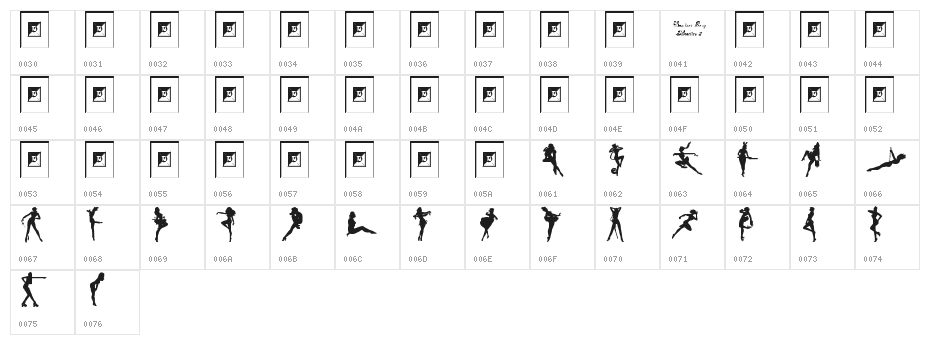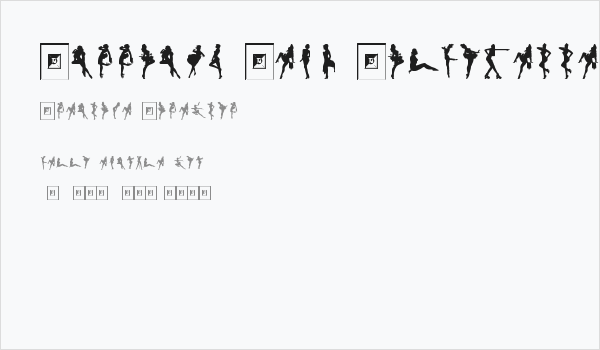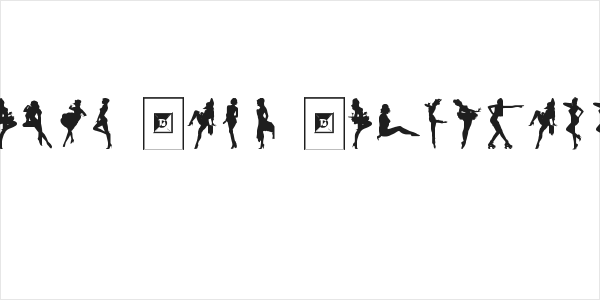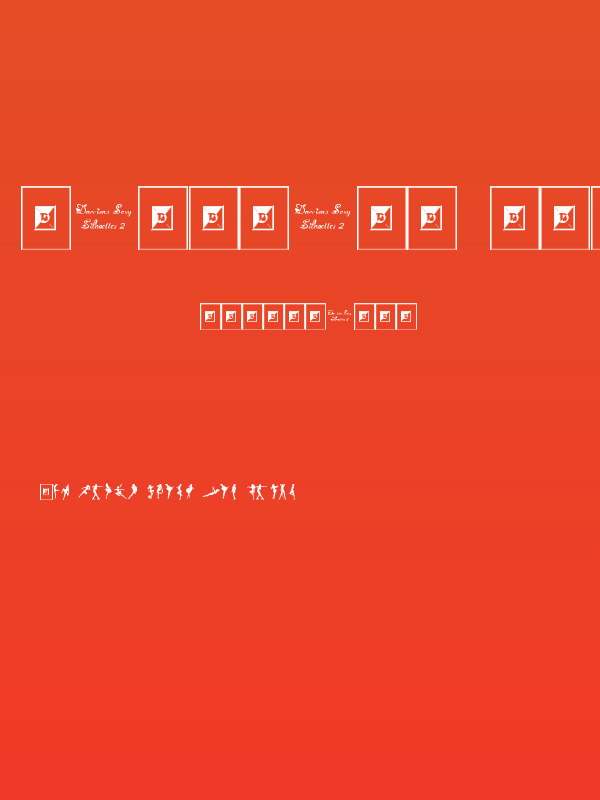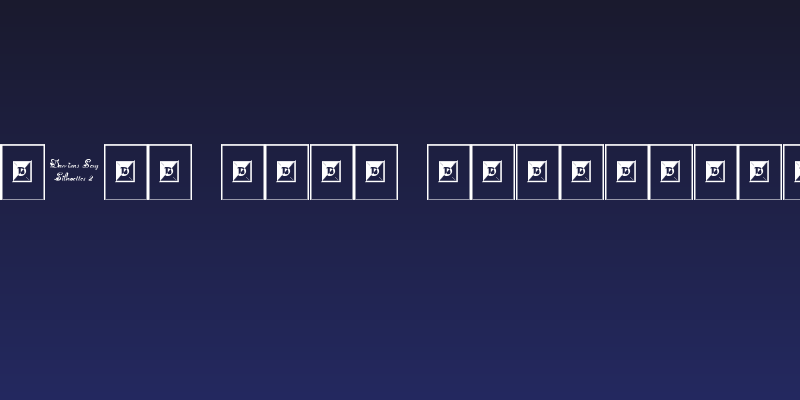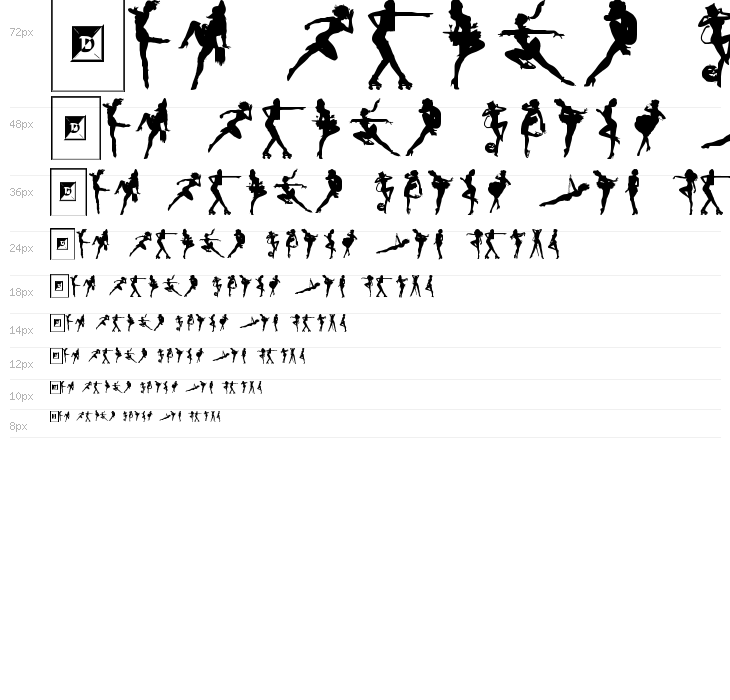
Darrians Sexy Silhouettes 2 Font
Darrians Sexy Silhouettes 2 Description
A decorative font featuring black silhouette illustrations of women in various dynamic and playful poses, with each character represented by a unique silhouette rather than traditional letterforms.
| Overall Style | Decorative, Playful, Thematic |
| Use Case | Logos, Headlines, Themed graphics, Posters |
| Proposed Projects | Posters, party flyers, adult-themed event branding, novelty invitations, graphic design accents. |